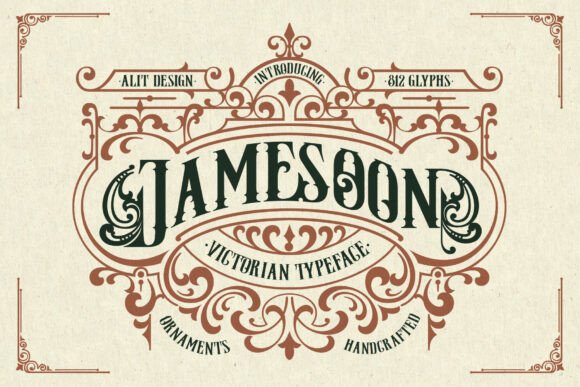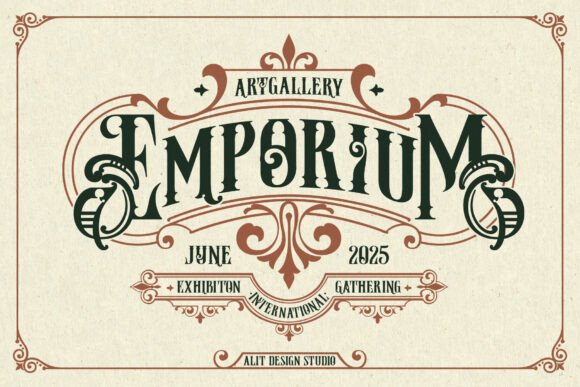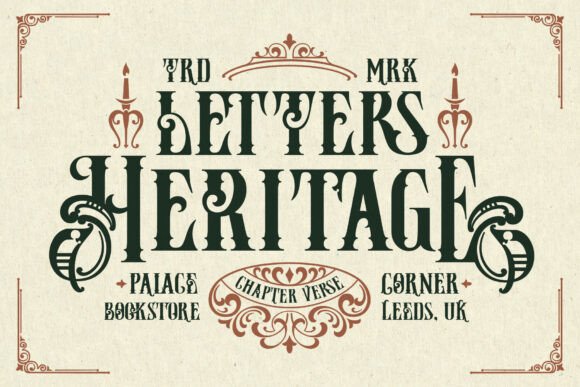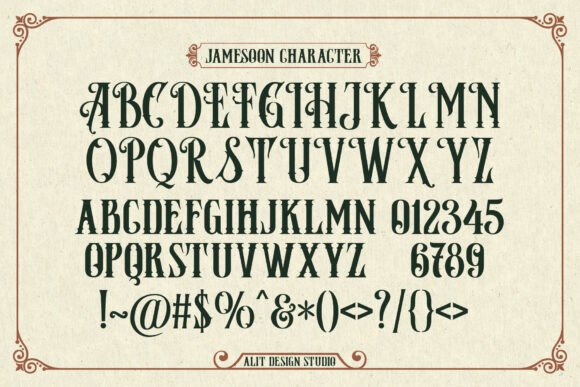
Jamesoon Font: Elegant Victorian Typography for Timeless Design
About the Jamesoon Font
Introducing the Jamesoon Font, a beautifully crafted typeface designed to elevate your creative projects. Jamesoon Victorian Font: A Timeless Victorian Elegance
Step into the grace of a bygone era with the Jamesoon Victorian Font, a beautifully crafted serif typeface inspired by the opulent charm of the Victorian period. This font captures the essence of vintage allure with a modern twist, making it the perfect choice for designs that require sophistication, elegance, and a touch of classical romance.
Jamesoon excels in applications requiring a touch of refined elegance, such as logos, headlines, short-form text in invitations or certificates, and packaging for luxury goods. Its ornate details make it unsuitable for body text or long paragraphs, as readability suffers at smaller sizes. Avoid using it in UI contexts where clarity and legibility are paramount.
Its Victorian-inspired forms lend it a sophisticated and slightly formal personality. Consider pairing Jamesoon with a clean sans-serif like Montserrat for a balanced contrast, or a playful script font like Pacifico for a more whimsical feel, depending on the desired mood. A geometric sans-serif like Futura could add a modern counterpoint, while a neutral serif such as Garamond offers a more traditional pairing.
For brands seeking to project heritage, timelessness, or high-end quality, Jamesoon is an excellent choice. It works particularly well for projects related to fashion, fine arts, historical societies, or traditional craftsmanship.
Jamesoon Font Usage Examples
Jamesoon Font Example